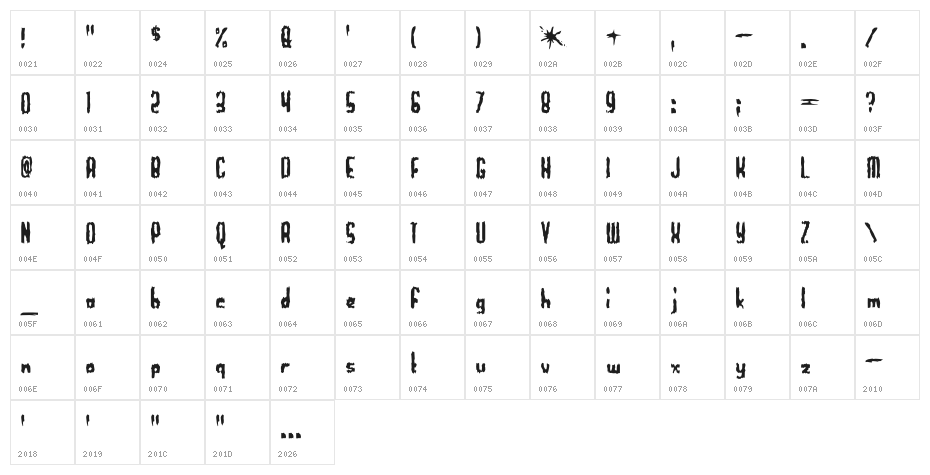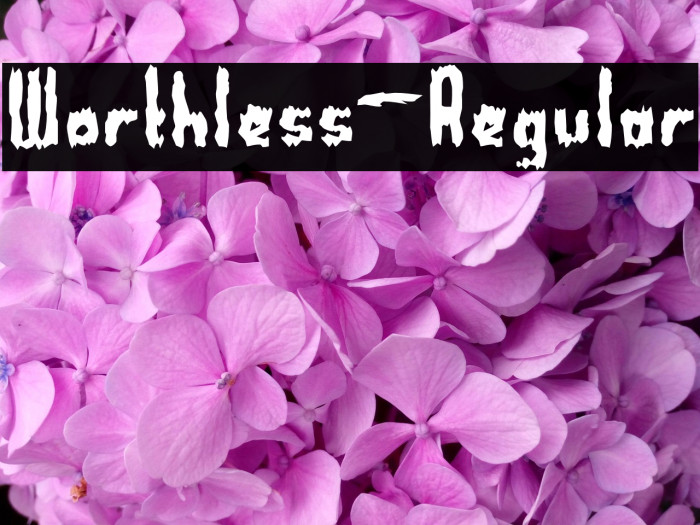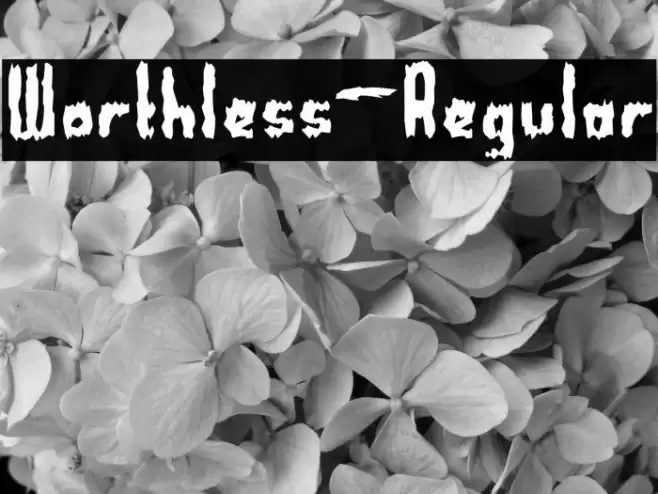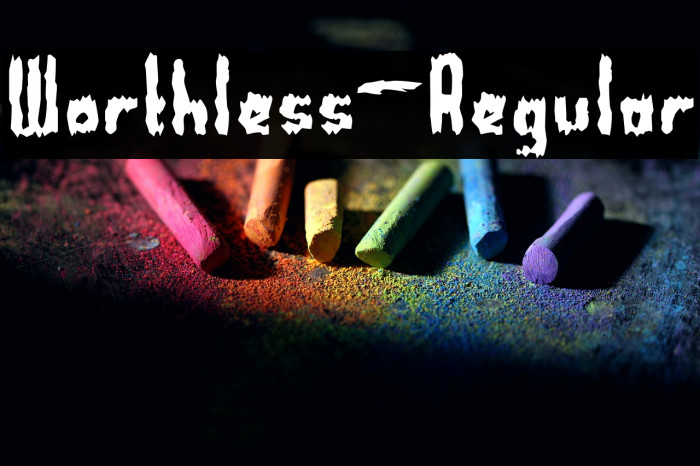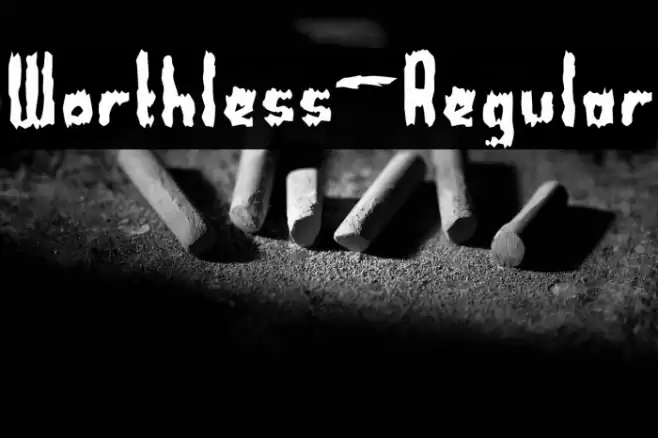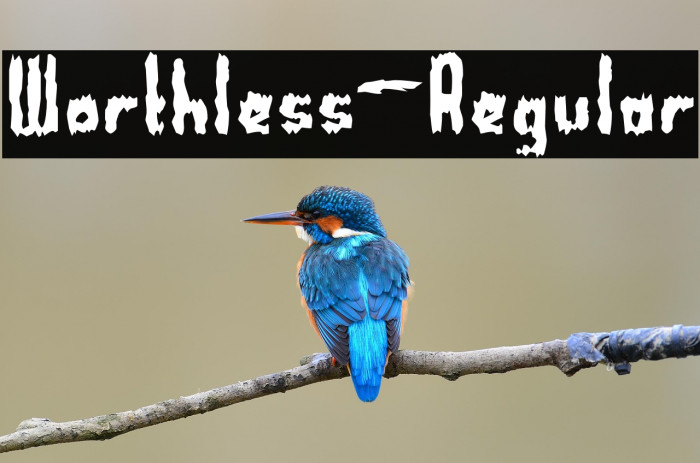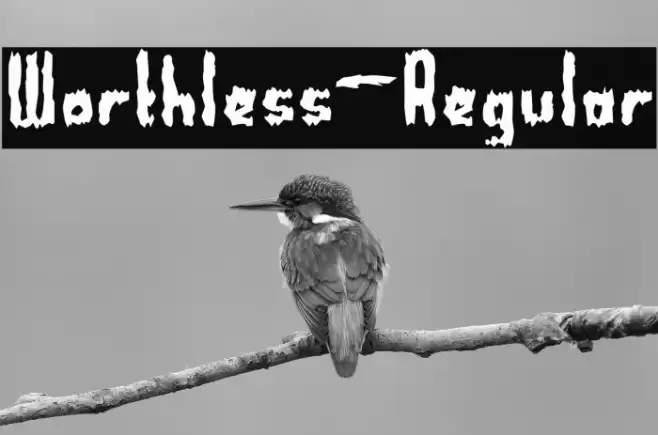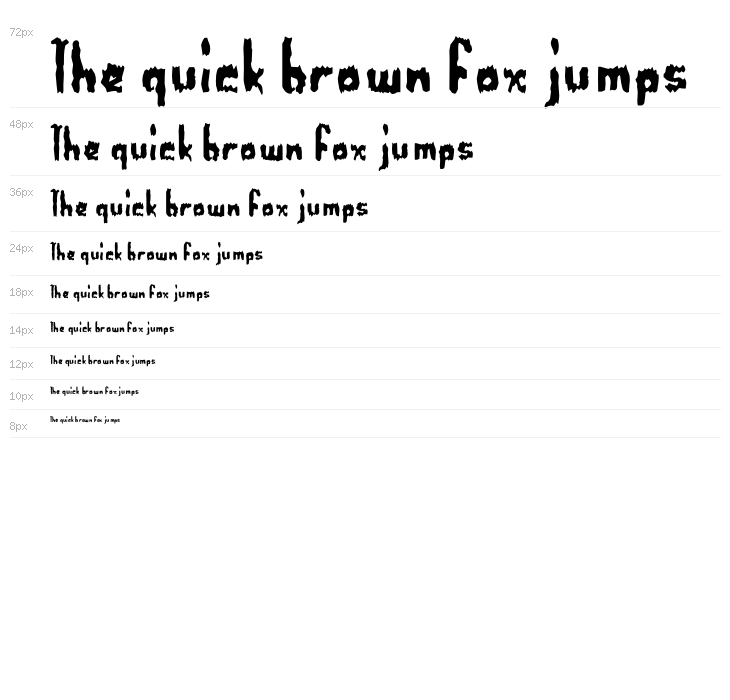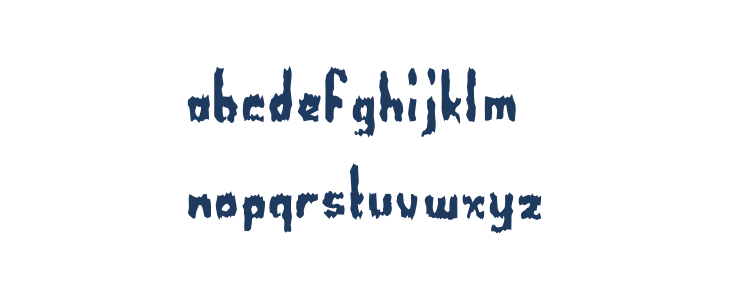
Worthless-Regular Font
Worthless-Regular Description
This font features a rugged, distressed appearance, with irregular edges and a bold, impactful presence. The characters are designed to evoke a sense of decay or erosion, making them ideal for projects that require a gritty, raw aesthetic. The uppercase and lowercase letters maintain a consistent style, with jagged edges and uneven strokes that suggest a hand-drawn or weathered look. The numbers and special characters follow the same theme, ensuring a cohesive appearance across all text elements. This font is particularly suited for creative projects that aim to convey a sense of edginess or rebellion.
| Proposed Projects | Ideal for horror-themed designs, album covers, posters, and edgy branding. |